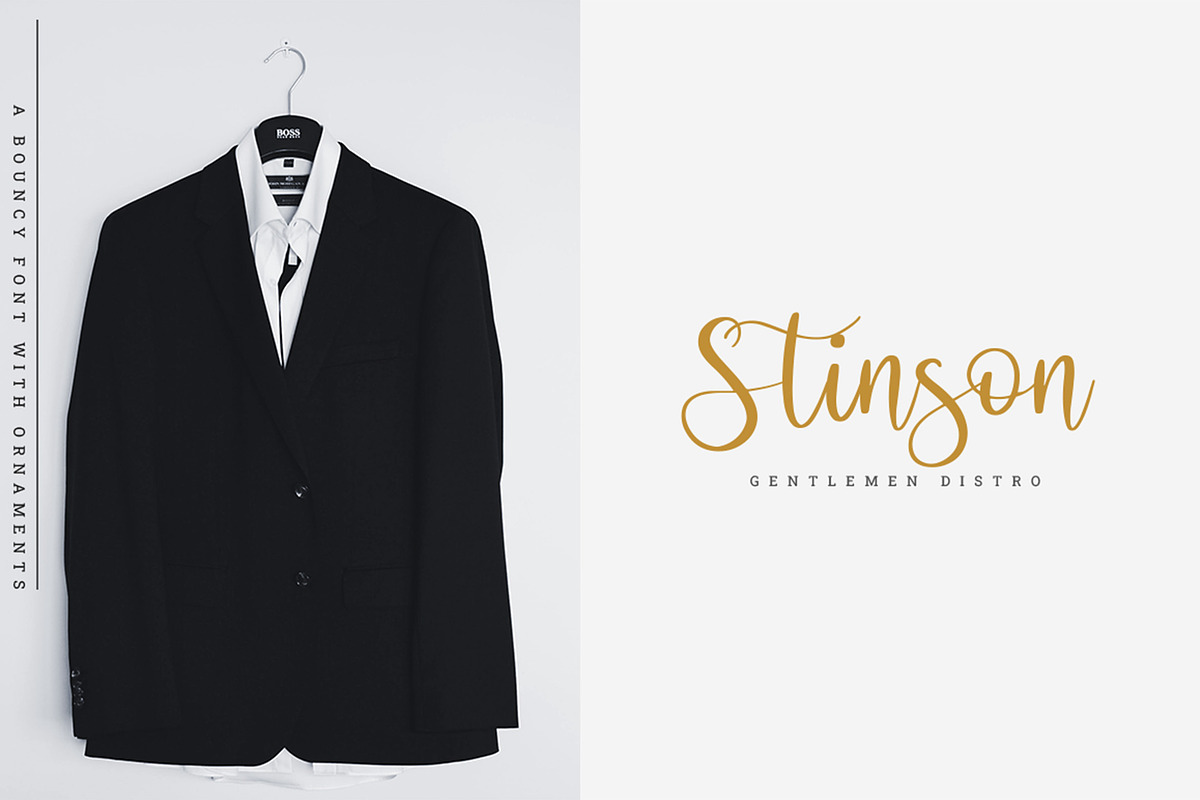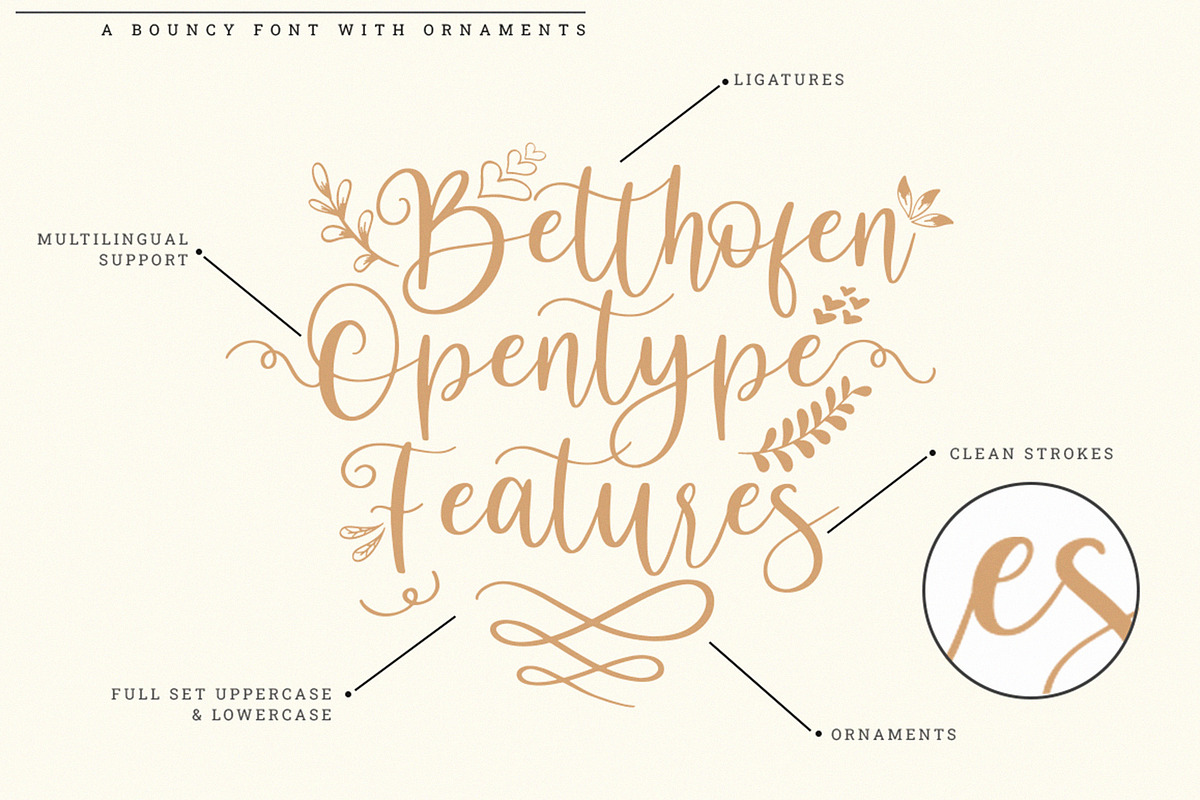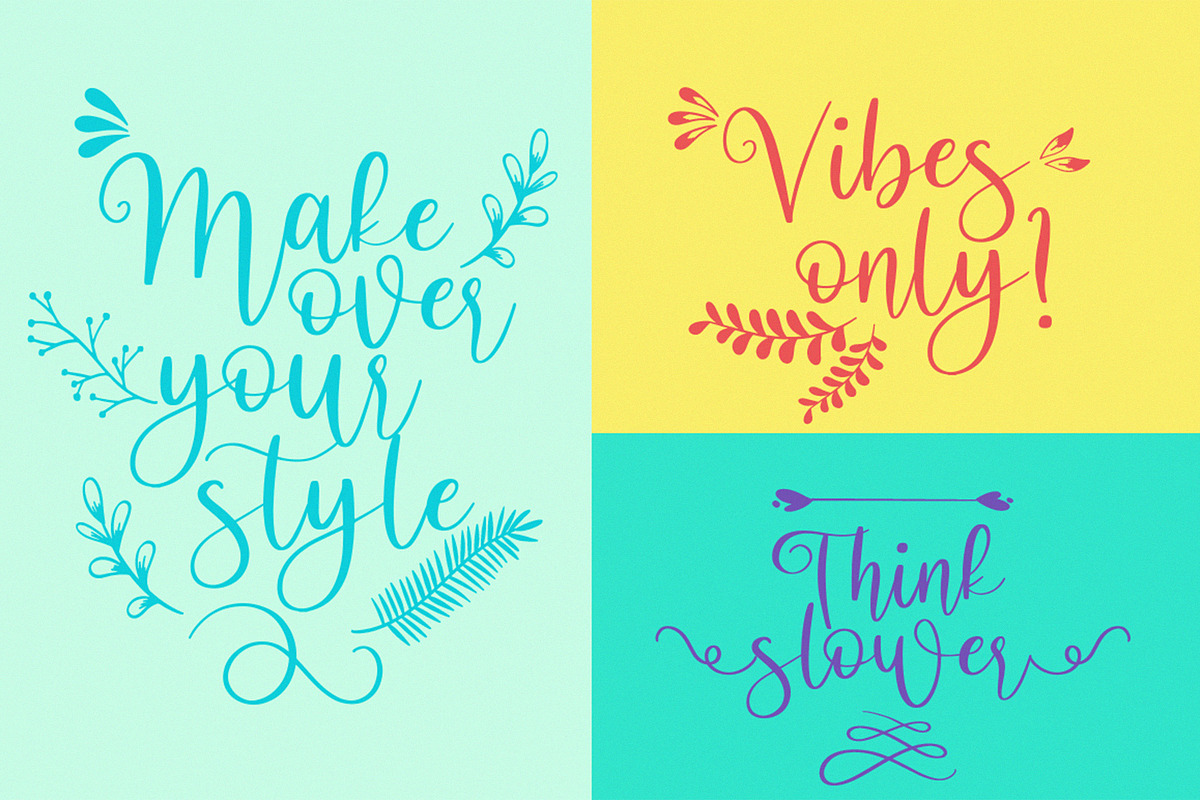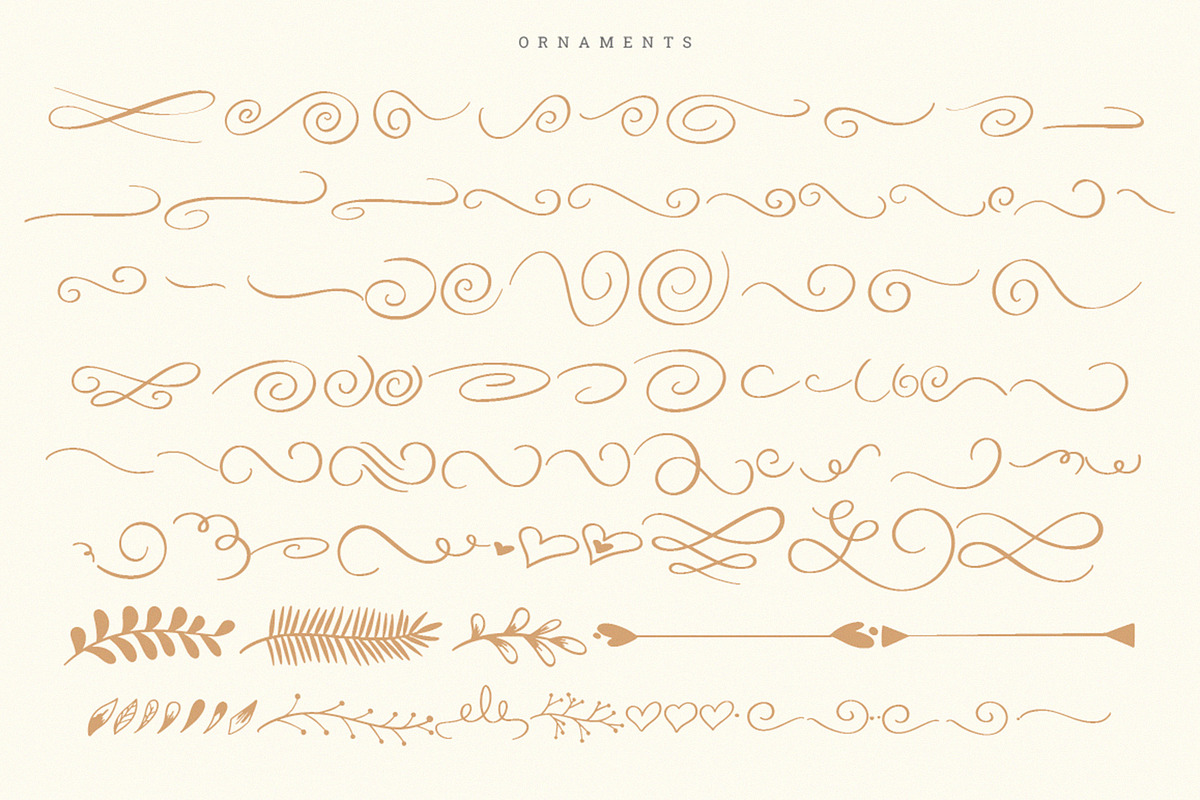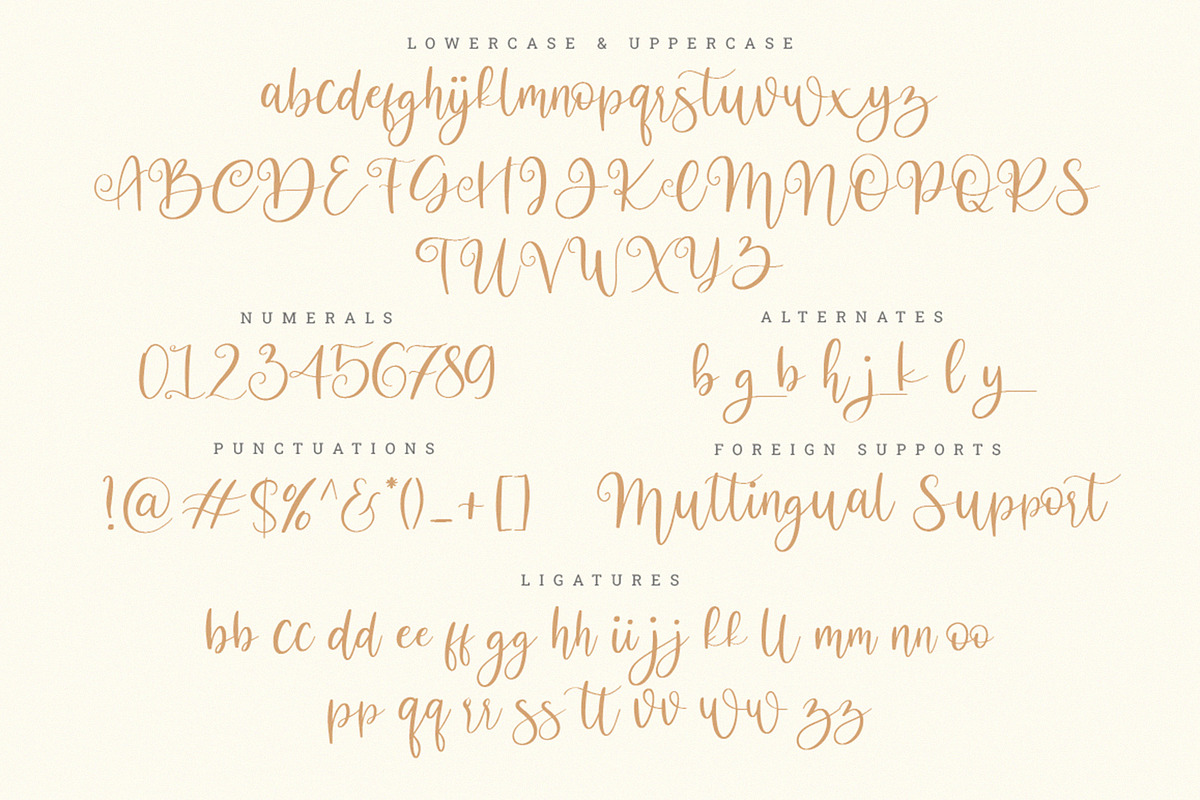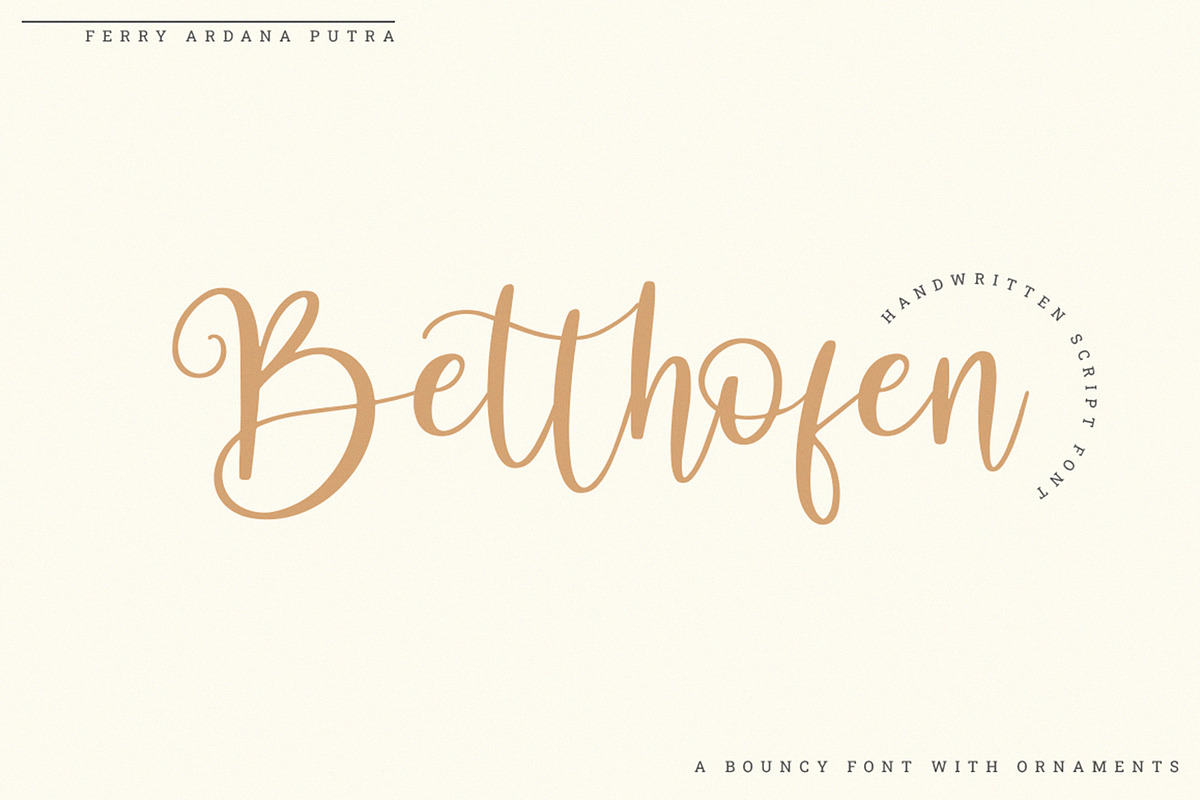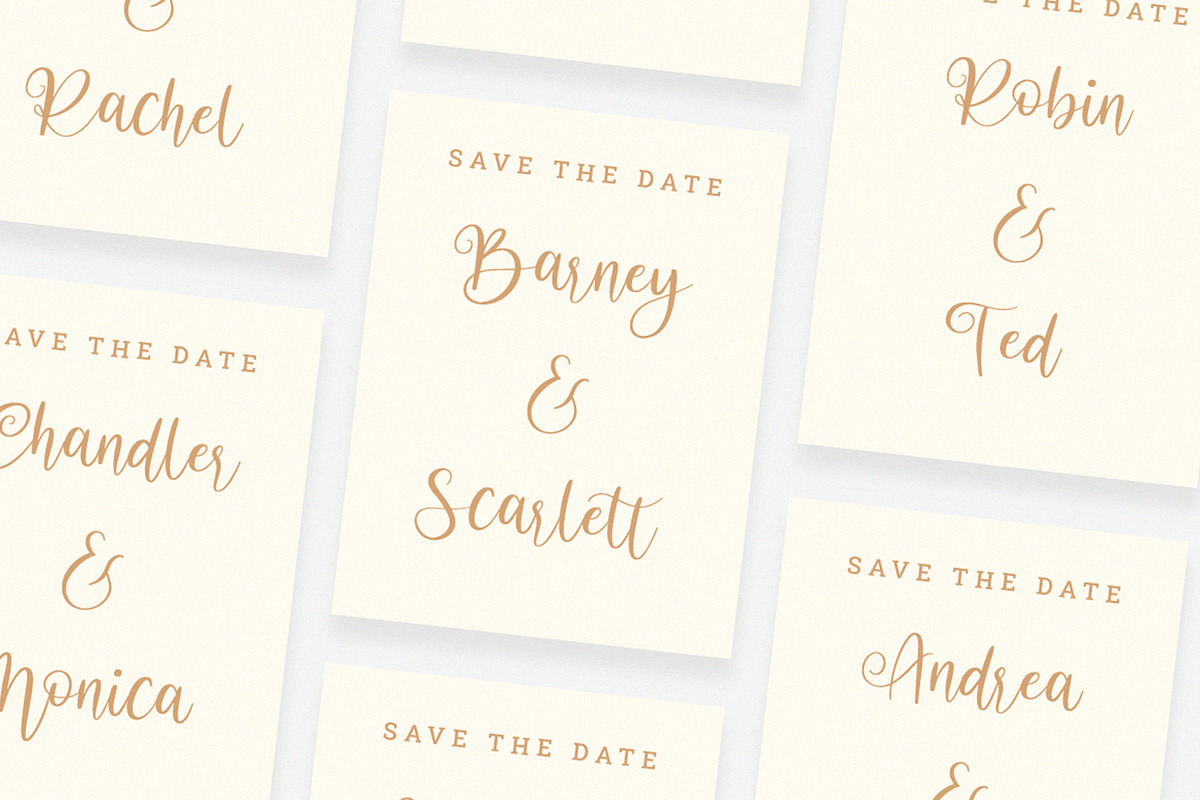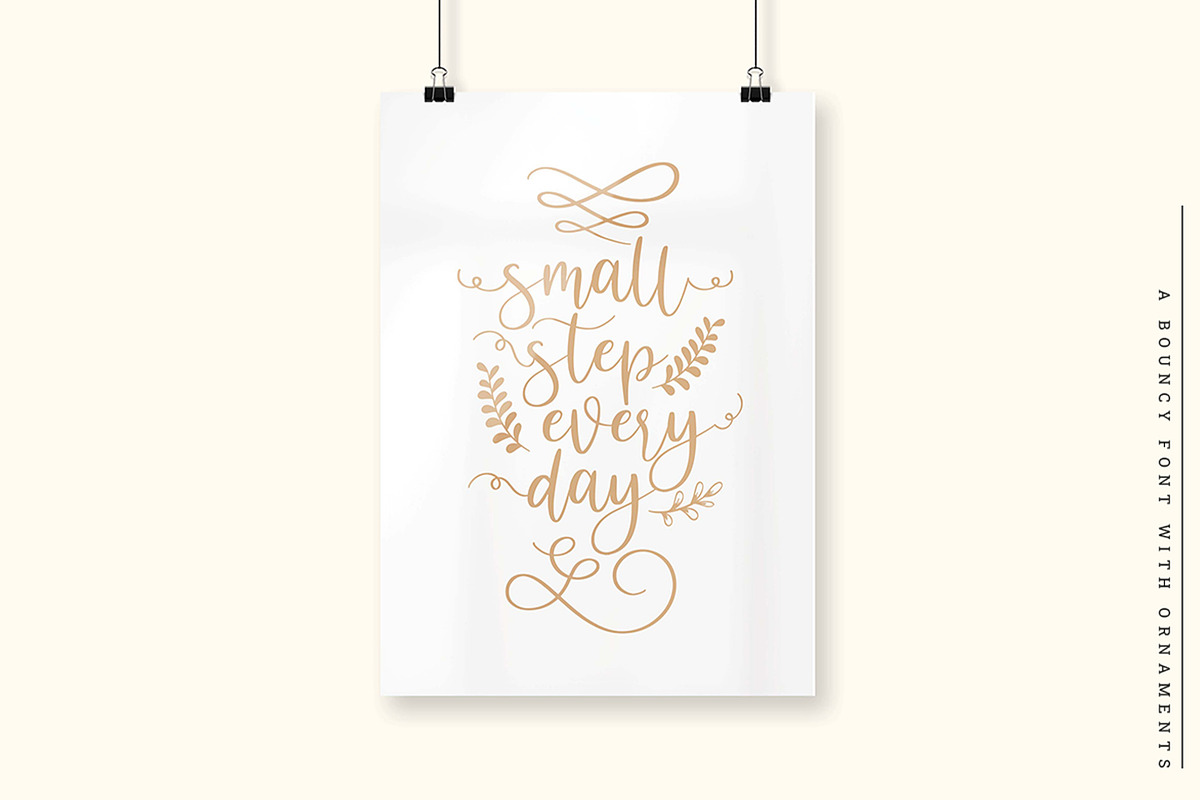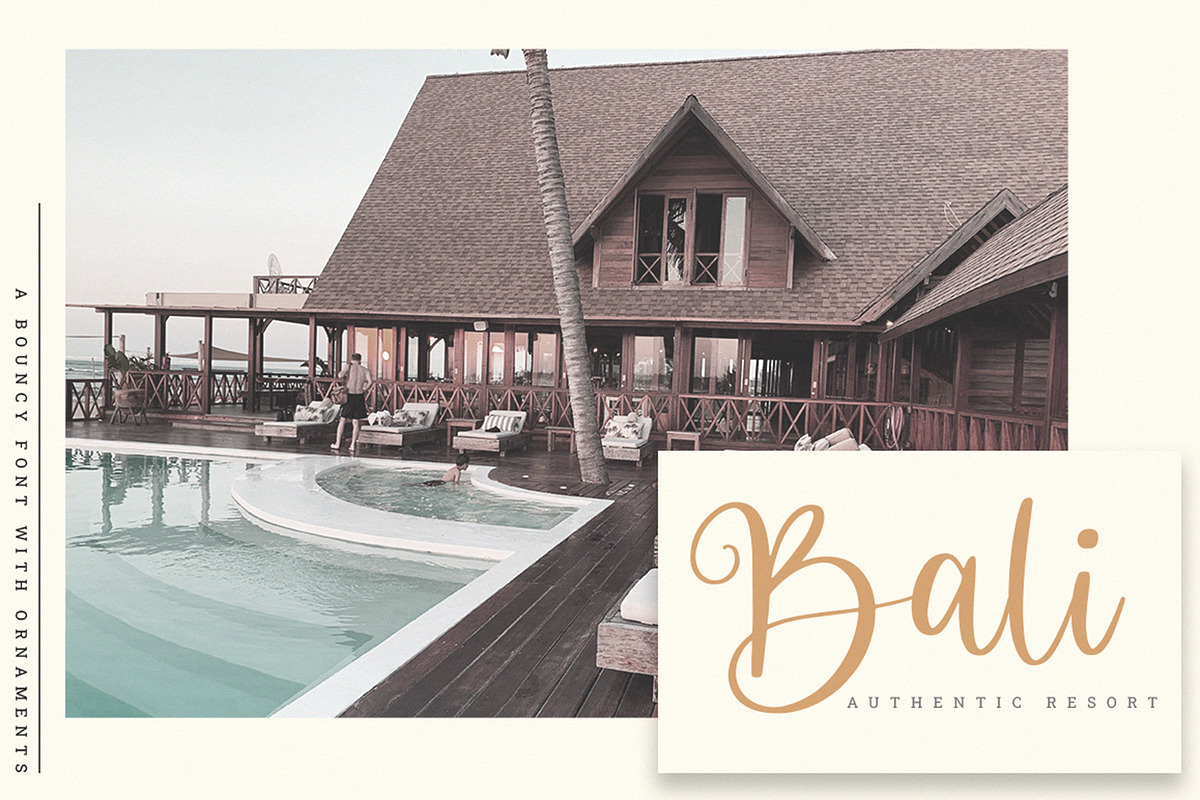
Betthofen | Handwriting Bouncy Font
Betthofen is a handwritten bouncy script font manufactured by Ferry Ardana Putra, this typeface support OpenType features and includes numeral, punctuation, ligatures and it also supports multi-languages. Combine this bouncy font with its ligature and ton of ornaments that you can freely choose for your precious project!
Betthofen is perfect for branding projects, wedding designs, advertisements, product packaging, product designs, label, photography, invitation, quotes, and any project spiced up!
Betthofen features:
A full set of upper & lowercase characters
Multilingual language support
PUA Encoded Characters
+350 Glyph
Swashes
Ornaments
OpenType Features